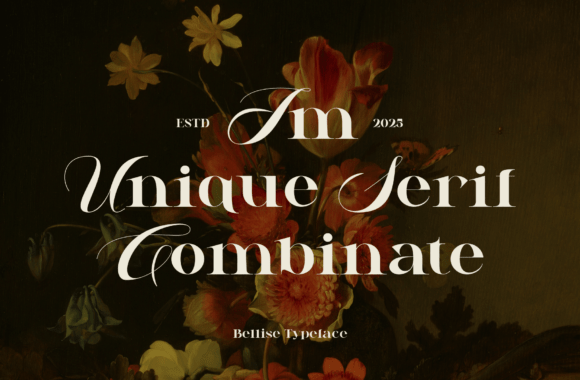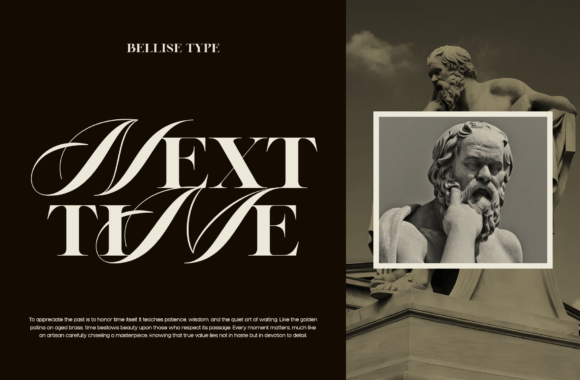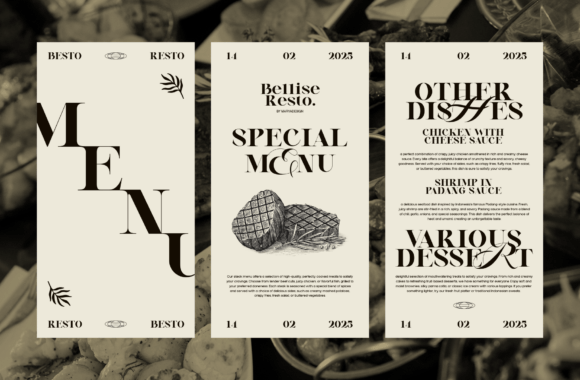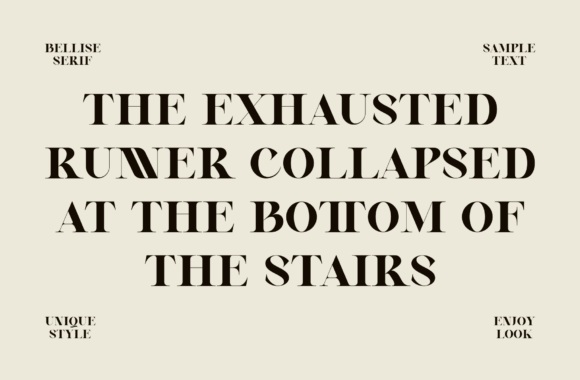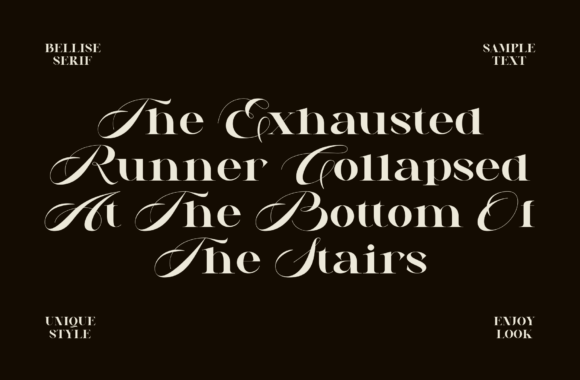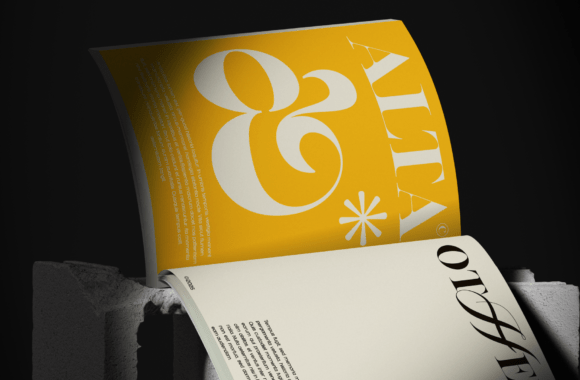
Discover the Timeless Elegance of the Bellise Font
As a designer, have you ever found yourself staring at a blank page, searching for the perfect font to elevate your project? You’ve tried countless options, but nothing seems to capture the essence of your vision. That’s where the Bellise Font comes in – a distinguished typeface that masterfully combines the sophistication of serifs with the fluid elegance of uppercase script.
Designed to make a statement, the Bellise Font is perfect for luxury branding, editorial design, and high-end visual compositions. Its unique fusion of structure and artistic flair makes it an invaluable asset for designers seeking to create a timeless aesthetic. With its high contrast strokes, graceful curves, and refined ligatures, the Bellise Font offers a typographic experience that blends tradition with contemporary sophistication.
Bellise Font Key Features
- Unique Characteristics: Bellise Font features a unique blend of modern and vintage elements, with intricate details and subtle textures that add depth and visual interest to any design.
- Legibility and Readability: Despite its intricate details, Bellise Font is highly legible and readable, making it an excellent choice for body text, headings, and titles in various design applications.
Bellise Font Review
Overall, I think the Bellise font is a solid addition to any designer’s toolkit. ✨ One of its greatest strengths is its versatility – it works well in both serif and sans-serif contexts, making it a great choice for a wide range of projects.
Another thing that stands out about Bellise is its unique flair. ✨ It’s not too ornate, but still has a distinctive character that can add a touch of elegance to any design. The font is also highly legible, which is essential for any typeface.
While the Bellise font is generally well-designed, there are a few limitations to be aware of. ⚠️ For one thing, it’s not ideal for very small font sizes – the letterforms can get a bit blurry and difficult to read.
- Limited font sizes: Bellise is best used at medium to large sizes.
- Not ideal for complex text: The font’s unique character can sometimes make it difficult to read when used in large blocks of text.
Overall, I think the Bellise font is a great choice for designers who want a unique and versatile typeface. While it may not be ideal for every project, it’s definitely worth considering for anything that needs a touch of elegance and sophistication.
Tips for Getting the Most Out of the Bellise Font
Use the Bellise font for creative and elegant designs. It pairs well with minimalist and modern designs. Experiment with different font sizes and colors to create a unique look.
The Bellise font is commonly used for:
- Wedding websites and social media graphics